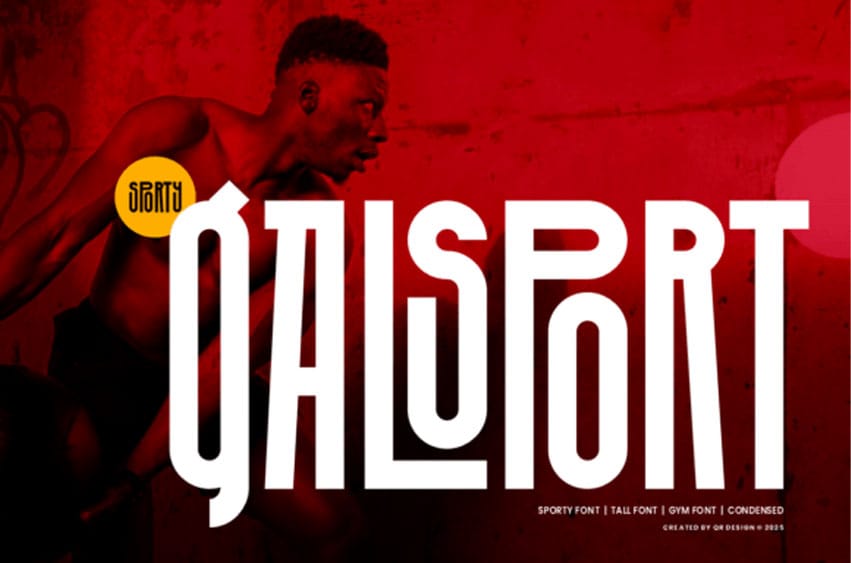
Galsport Font is a bold and dynamic display font designed for sports branding, gym posters, and athletic apparel. With its ultra-condensed form and strong vertical emphasis, this typeface radiates power and precision.
The modern, geometric lines give it a sleek, professional feel that’s perfect for logos, team identities, and performance-focused marketing.